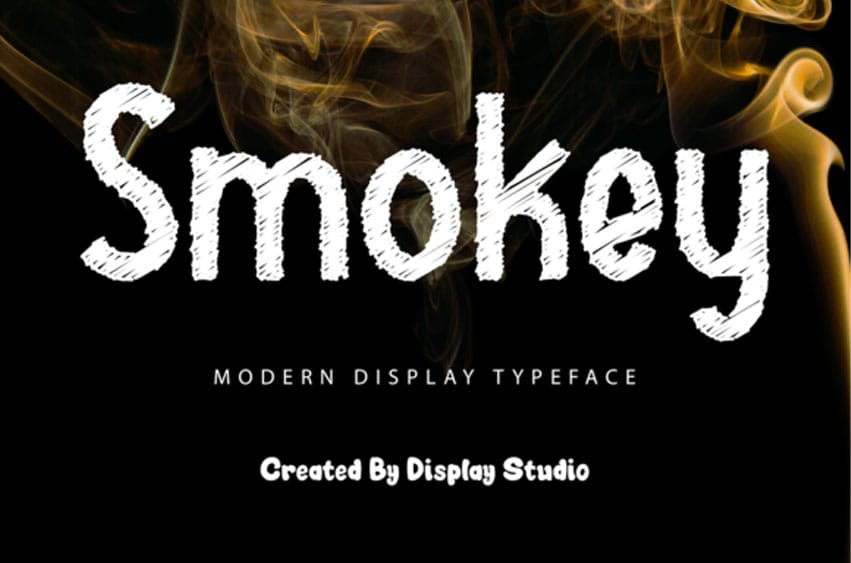
Smokey Font is a modern display font. This typeset is perfect for brand logos, invitations, greeting cards, or any kind of project.
With multilingual features and style variations, this typeface will further enhance the aesthetic aspect of your work.